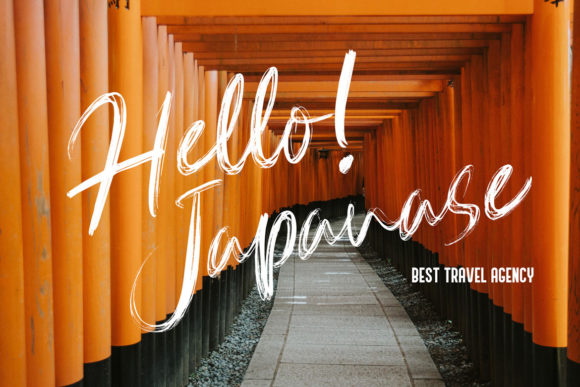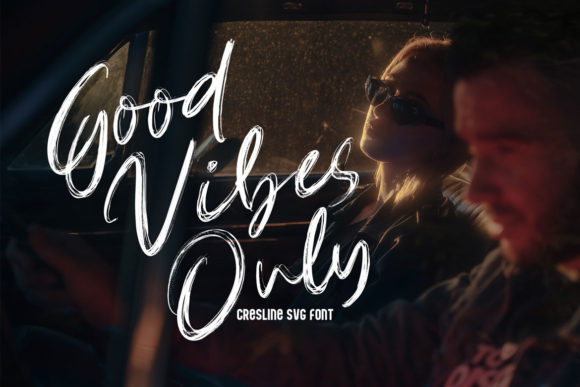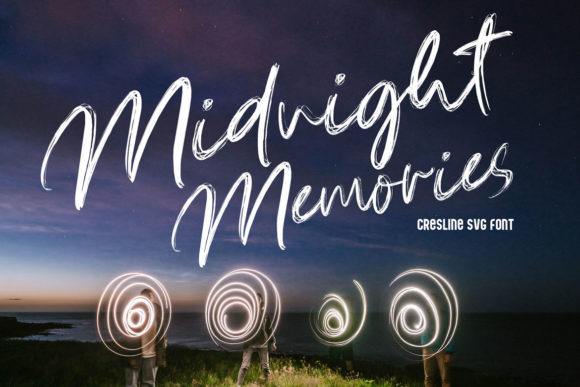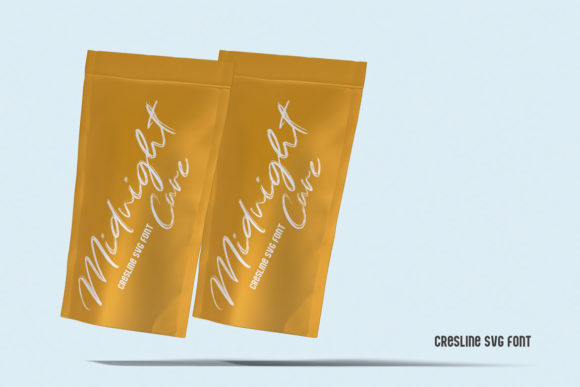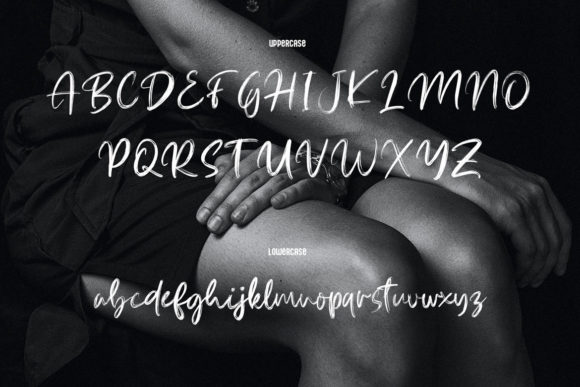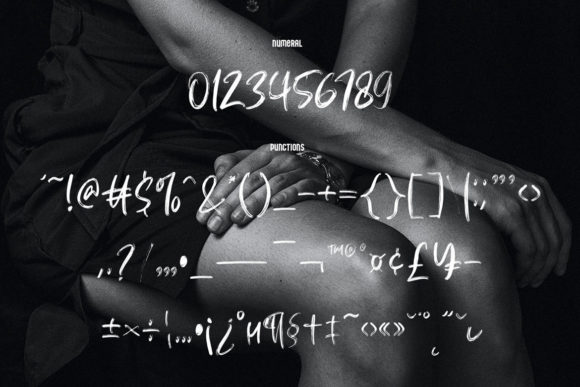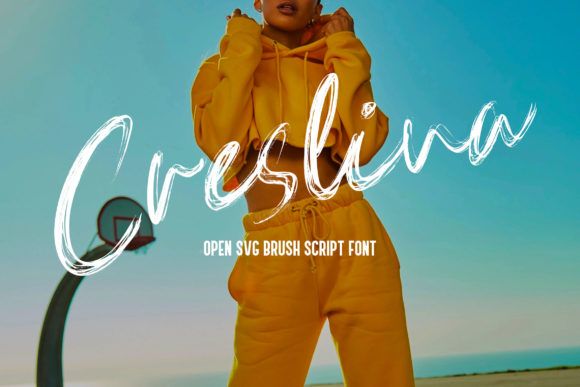
Creslina Font: The Perfect Casual and Fun Handwritten Font for Designers and Crafters
Creslina Font is a beautiful, casual, and fun handwritten font that has been carefully crafted using a brush pen. This unique font boasts a clean and quirky design, making it an ideal choice for a wide range of creative projects, including logos, branding, social media, and crafty DIY endeavors. In this article, we’ll take a closer look at the Creslina Font, its features, and how it can elevate your designs and crafting projects.
What Makes Creslina Font Special?
Creslina Font is a one-of-a-kind handwritten font that has been created with a brush pen, giving it a distinctive and personal touch. The font’s clean and quirky design makes it perfect for designers and crafters who want to add a touch of personality to their work. Whether you’re creating a logo, branding materials, or social media graphics, Creslina Font is sure to make your designs stand out.
Key Features of Creslina Font
- Casual and Fun Design: Creslina Font has a playful and carefree design that’s perfect for creative projects.
- Handwritten with a Brush Pen: The font’s unique, handwritten look is courtesy of a brush pen, giving it a personal and distinctive feel.
- Clean and Quirky: Creslina Font strikes the perfect balance between clean lines and quirky charm, making it versatile and eye-catching.
- Perfect for Logos and Branding: The font’s unique design makes it an excellent choice for logos, branding materials, and other marketing collateral.
- Suitable for Social Media and DIY Projects: Creslina Font is also ideal for social media graphics, crafty DIY projects, and other creative endeavors.
How to Use Creslina Font in Your Designs
Creslina Font is incredibly versatile and can be used in a variety of design projects. Here are a few ideas to get you started:
- Logos and Branding: Use Creslina Font to create unique and memorable logos, business cards, and other branding materials.
- Social Media Graphics: Add a touch of personality to your social media graphics, including Facebook posts, Instagram stories, and Twitter headers.
- Crafty DIY Projects: Creslina Font is perfect for crafty DIY projects, such as handmade cards, gift tags, and scrapbooking.
- Invitations and Party Decor: Use the font to create custom invitations, party decorations, and other celebratory materials.
Why Designers and Crafters Love Creslina Font
Creslina Font has quickly become a favorite among designers and crafters due to its unique and versatile design. Here are a few reasons why:
- Easy to Read: Despite its playful design, Creslina Font is easy to read, making it perfect for body text and headlines.
- Highly Versatile: The font’s clean and quirky design makes it suitable for a wide range of design projects, from logos to social media graphics.
- Unique and Memorable: Creslina Font’s distinctive design ensures that your work will stand out and be remembered.
Creslina Font is a one-of-a-kind handwritten font that’s perfect for designers and crafters looking to add a touch of personality to their work. With its clean and quirky design, this font is ideal for logos, branding, social media graphics, and crafty DIY projects. Whether you’re a seasoned designer or a crafting enthusiast, Creslina Font is sure to become a favorite in your creative toolkit.